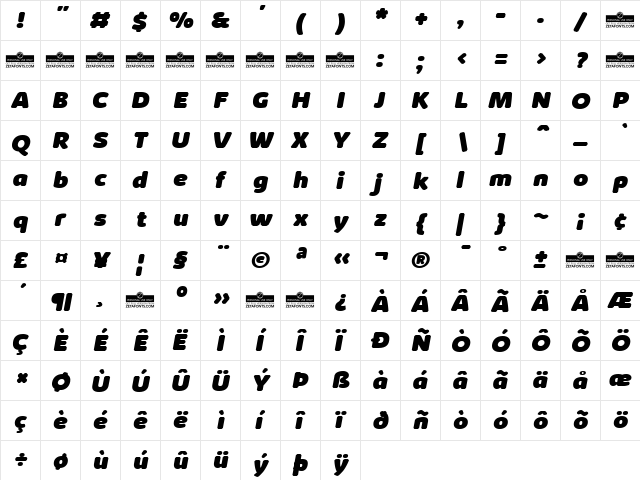
Kabrio Abarth Heavy Italic
| Foundry | studio kmzero |
| Designer | Corimo Lorenzo Pancini |
Design Context for Kabrio Abarth Typeface
Kabrio Abarth takes a measured approach to typography — its balanced proportions and neutral character make it a reliable workhorse for both digital and print work. Its italic angle brings a sense of urgency and motion to the letterforms.
Pro Tip: Use Kabrio Abarth for emphasis, pull quotes, and subheadings where its slanted energy can add rhythm to the layout.